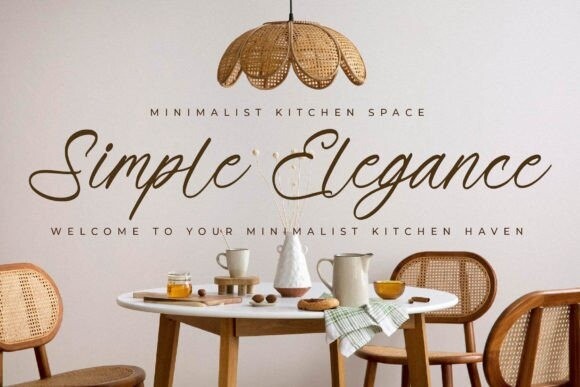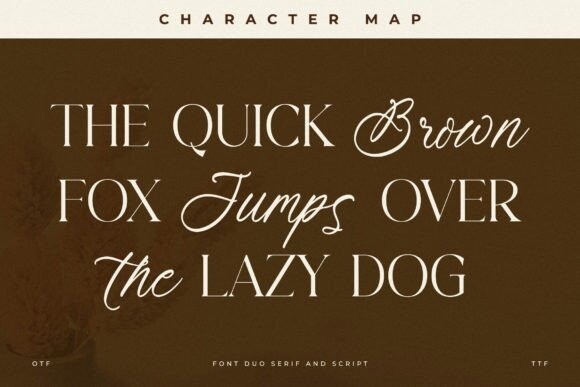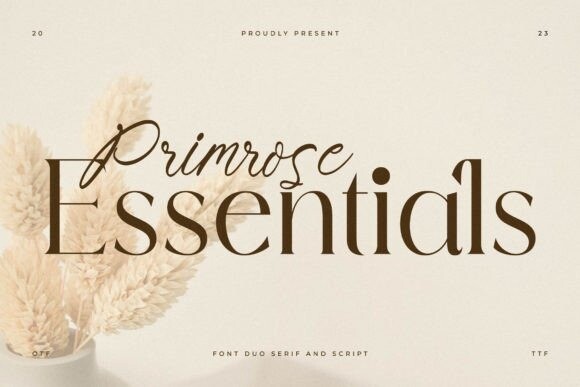
Primrose Essentials Font
Primrose Essentials Font Duo, a serif and script typeface that has its own unique style & modern look.
This typeface is perfect for an elegant & luxury logo, book or movie title design, fashion brand, magazine, clothes, lettering, quotes, and so much more.